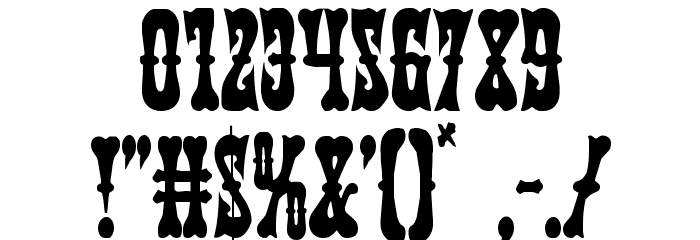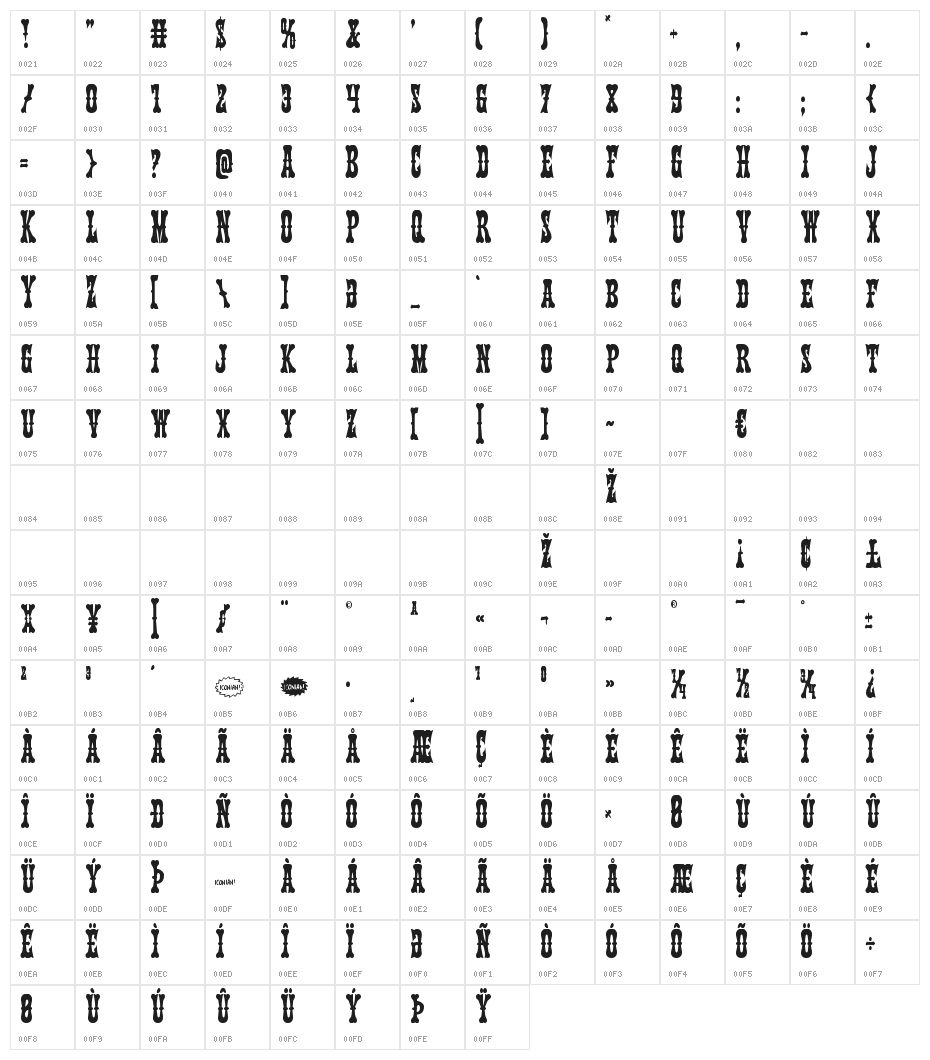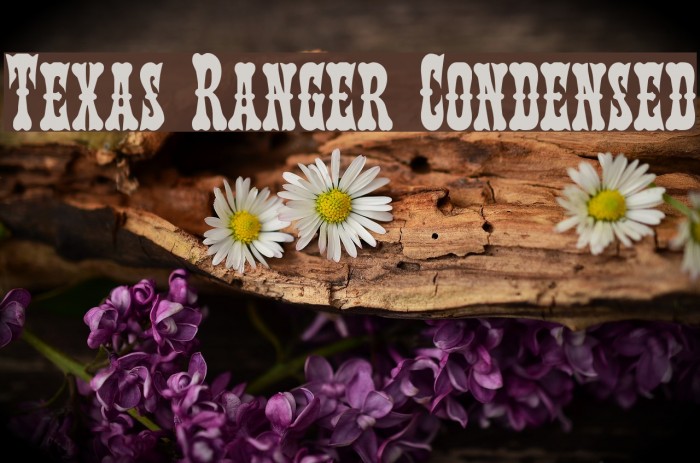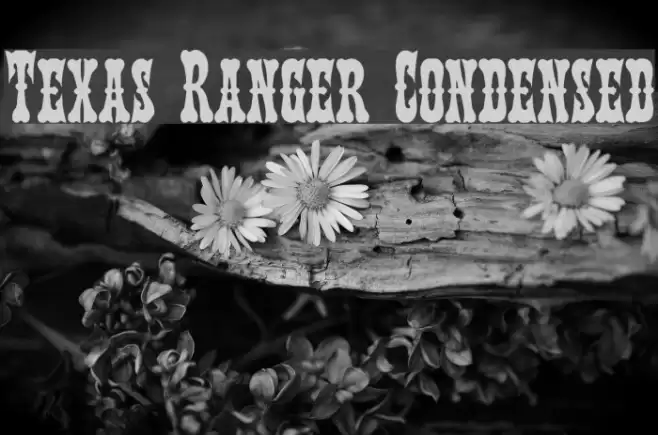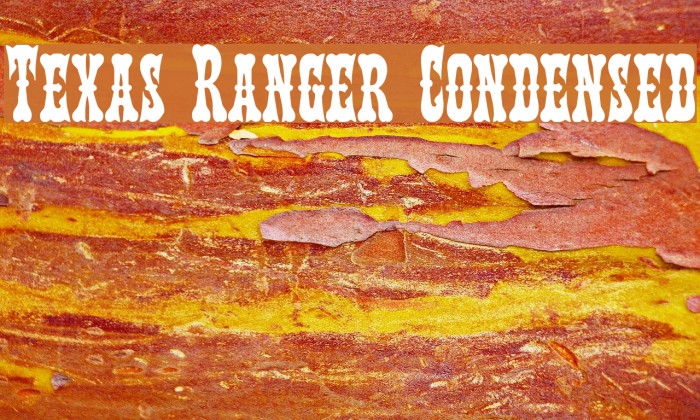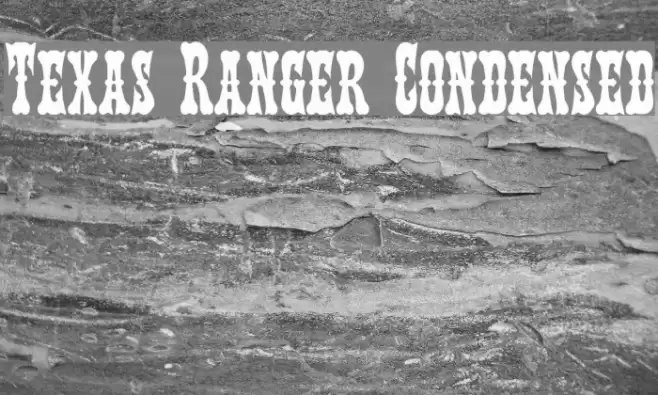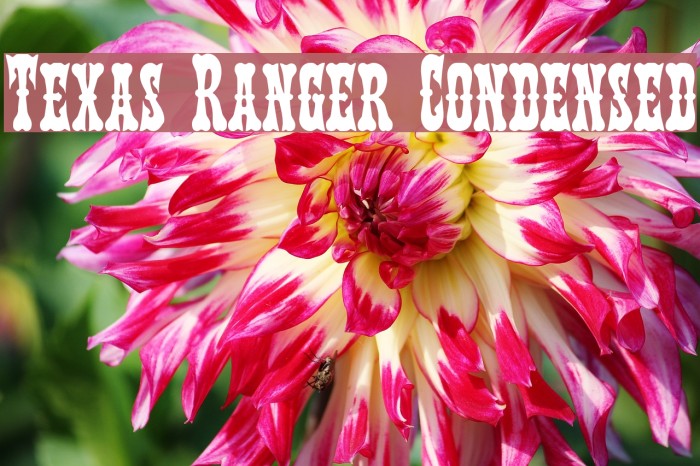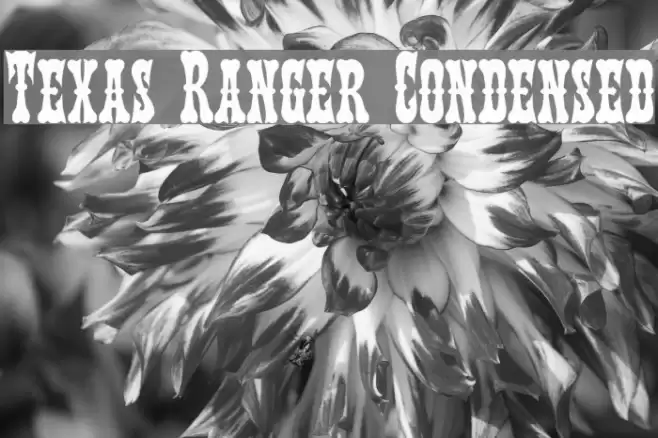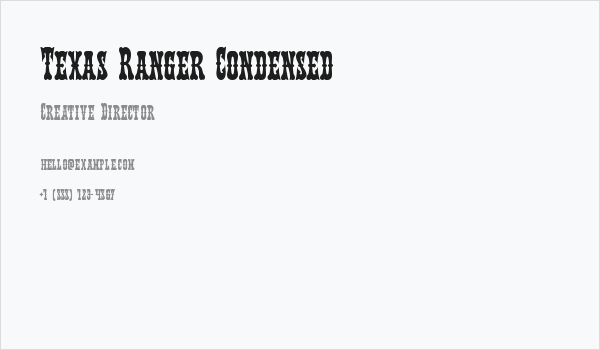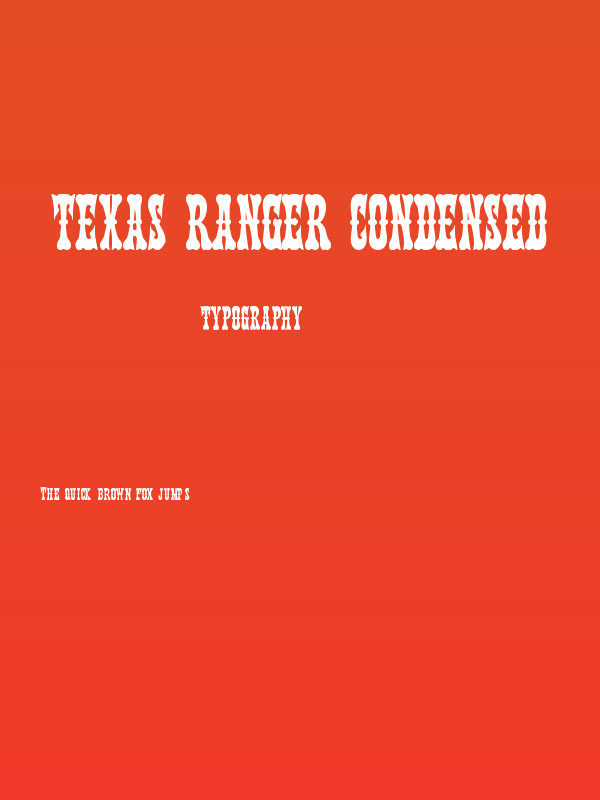
Texas Ranger Condensed Font
Texas Ranger Condensed Description
This font exudes a bold and rugged aesthetic, reminiscent of the Wild West. Its condensed form features thick, blocky characters with unique, decorative serifs that give it a distinctive, eye-catching appearance. The uppercase and lowercase letters maintain a consistent style, with exaggerated curves and sharp angles that add to its dramatic flair. The numbers and special characters are equally bold, ensuring a cohesive look across all text elements. This font's strong presence makes it ideal for projects that require a touch of vintage Americana or a bold statement.
| Proposed Projects | Ideal for posters, branding, and signage that require a vintage or Western theme. |